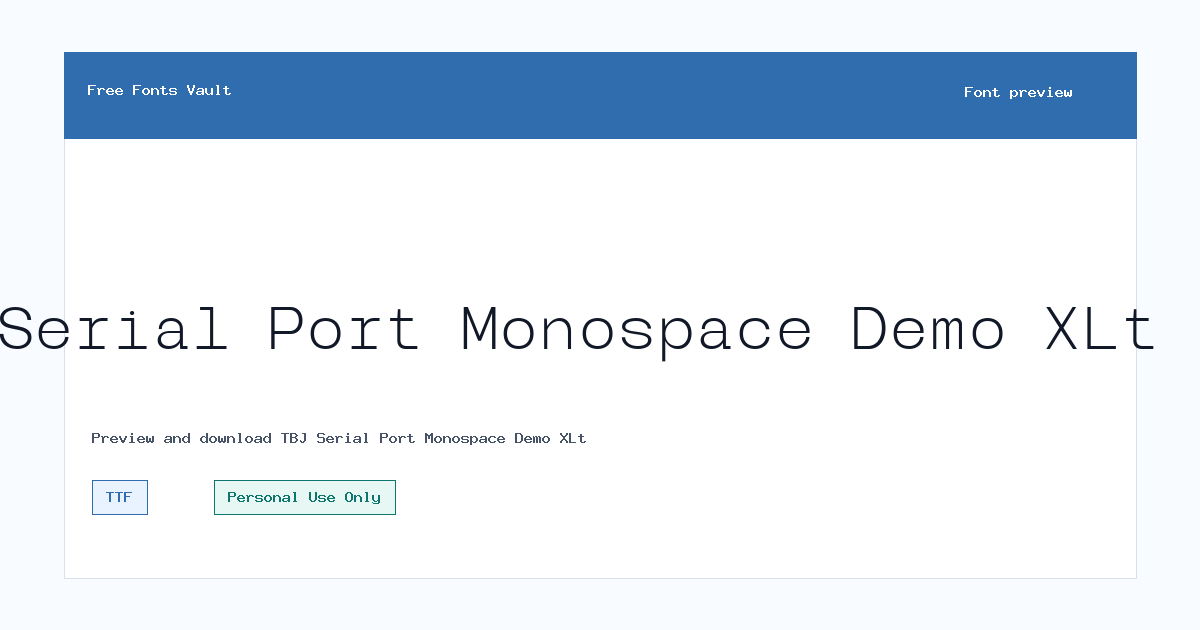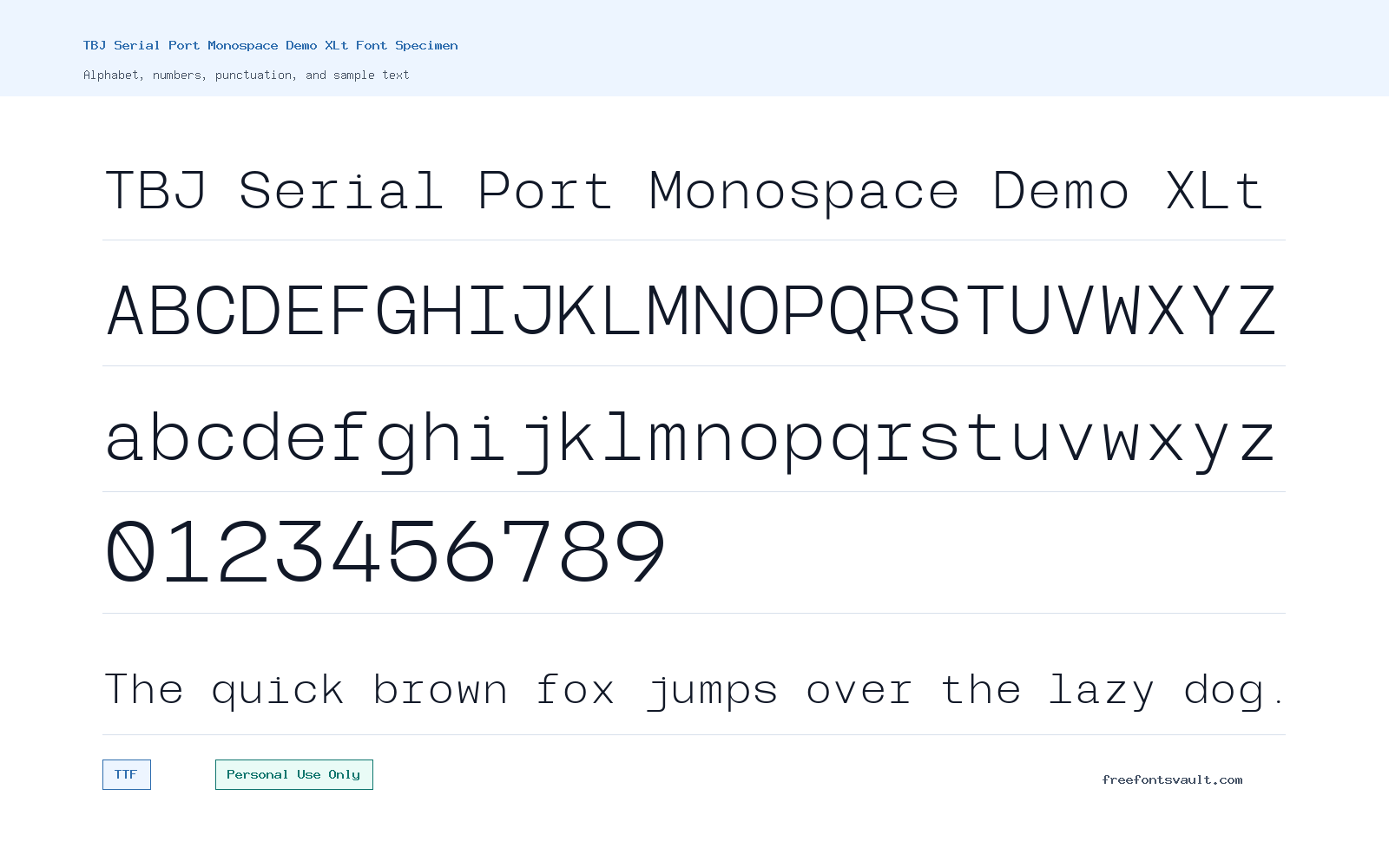
TBJ Serial Port Monospace Demo XLt
- Designer Arif Rijal
- Foundry Taboja Studio
TBJ Serial Port Monospace Demo XLt is a personal-use demo font from Arif Rijal and Taboja Studio. Its name points to a monospaced style with a light, technical feel, making it a good font to test when you want clean spacing, a coded look, or a controlled display layout.
About TBJ Serial Port Monospace Demo XLt
TBJ Serial Port Monospace Demo XLt is best approached as a display-friendly monospace font rather than a general body-text workhorse. A monospaced design gives each character a consistent amount of horizontal space, which can create a structured rhythm in previews, headings, UI experiments, short labels, and technology-themed layouts. The “XLt” part of the name suggests an extra-light style, so visitors should pay close attention to stroke visibility at small sizes, especially on low-contrast backgrounds or busy images.
Use the preview tool to test the exact words you plan to design with. Monospace fonts can look very different depending on the letter mix: words with many narrow characters may feel more open, while all-caps text can become very wide. Try it in short headlines, poster titles, album-style graphics, web mockups, interface labels, code-inspired banners, and minimalist logo drafts. For logo work, test the font at the smallest size where the mark may appear, then check whether the thin weight still holds up. If the design needs strong impact from far away, pair it with a heavier supporting font or increase contrast through size, color, and spacing.
- Monospace-style family name, useful for structured, technical, code-inspired, and grid-based typography tests.
- Extra-light demo style suggested by the XLt naming, best tested at larger sizes where thin strokes remain visible.
- Technology-themed posters, digital event graphics, and cyber or interface-inspired headline treatments.
- Logo drafts and wordmark experiments where even spacing and a precise typographic rhythm are useful.
- Website and app mockups that need a clean monospace accent for labels, hero text, or short navigation elements.
- Editorial titles, social graphics, packaging concepts, and mood boards for non-commercial exploration.
- Code-inspired banners, terminal-style design tests, and minimalist display compositions.
The designer is Arif Rijal, and the foundry is Taboja Studio. The designer link points to Taboja Studio on Gumroad.
For best results, preview the exact text you want to use and test it at several sizes. Keep contrast high, give the letters enough spacing, and avoid relying on the extra-light style for long paragraphs or tiny interface text. Pair it with a neutral, readable sans serif for body copy so the monospace font can stay focused on short display moments.
Who designed TBJ Serial Port Monospace Demo XLt?
The designer is listed as Arif Rijal, with Taboja Studio named as the foundry.
What kind of projects is this font good for?
It is most useful for short display text such as posters, logo drafts, web mockup headings, interface labels, and code-inspired graphics. It is not the safest choice for long reading text.
What should I pair it with?
Pair it with a simple, readable sans serif for body text. Let TBJ Serial Port Monospace Demo XLt handle short headings, labels, or accent typography.